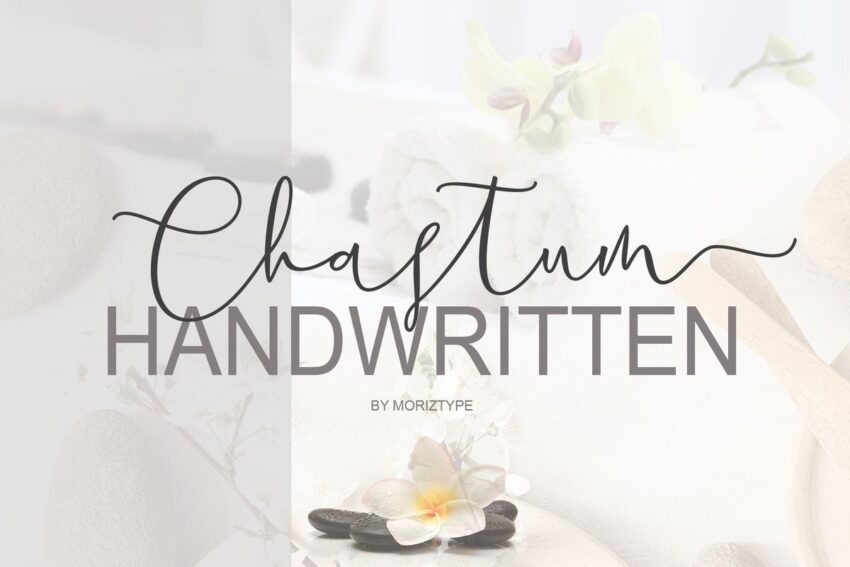
Introduction to Chastum Font
Chastum is modern handwriting calligraphy, and has its own distinctive features with a feminine style.
It is an extremely stylistic font, and one that can add a ton of romance and kindness to your creative projects .
Key Features of Chastum Font